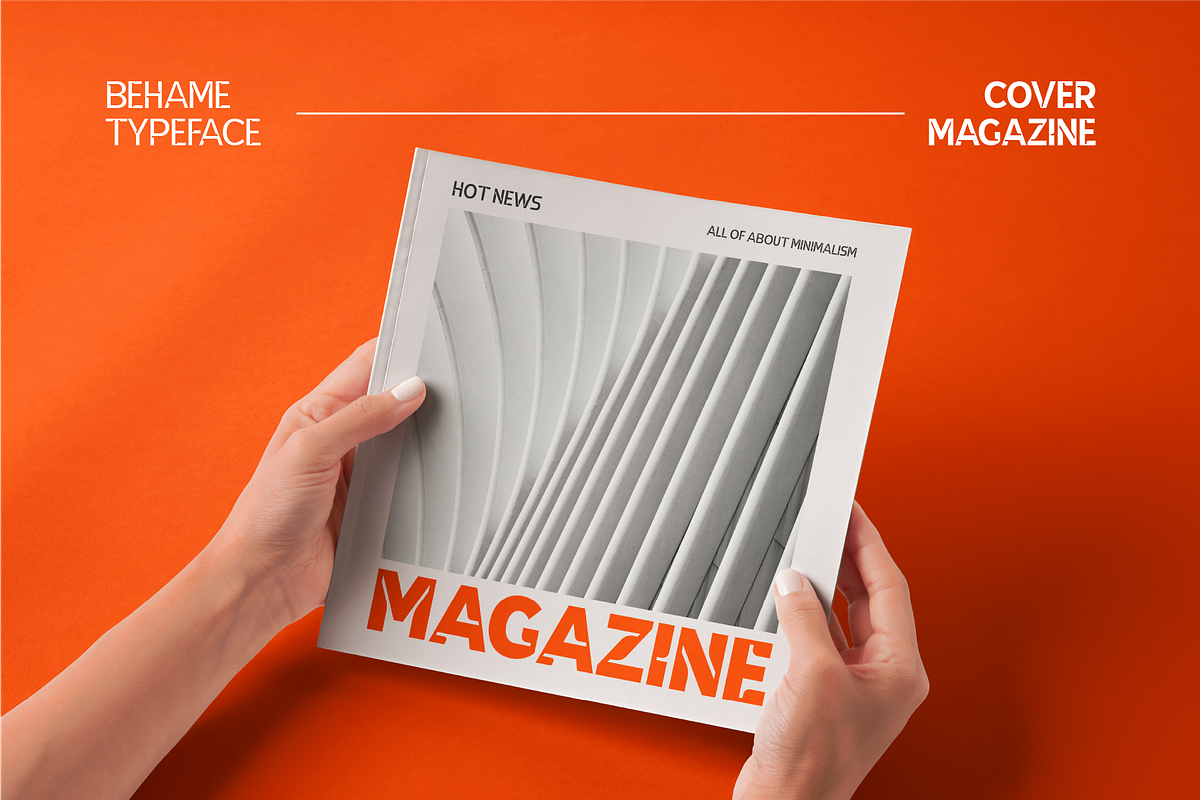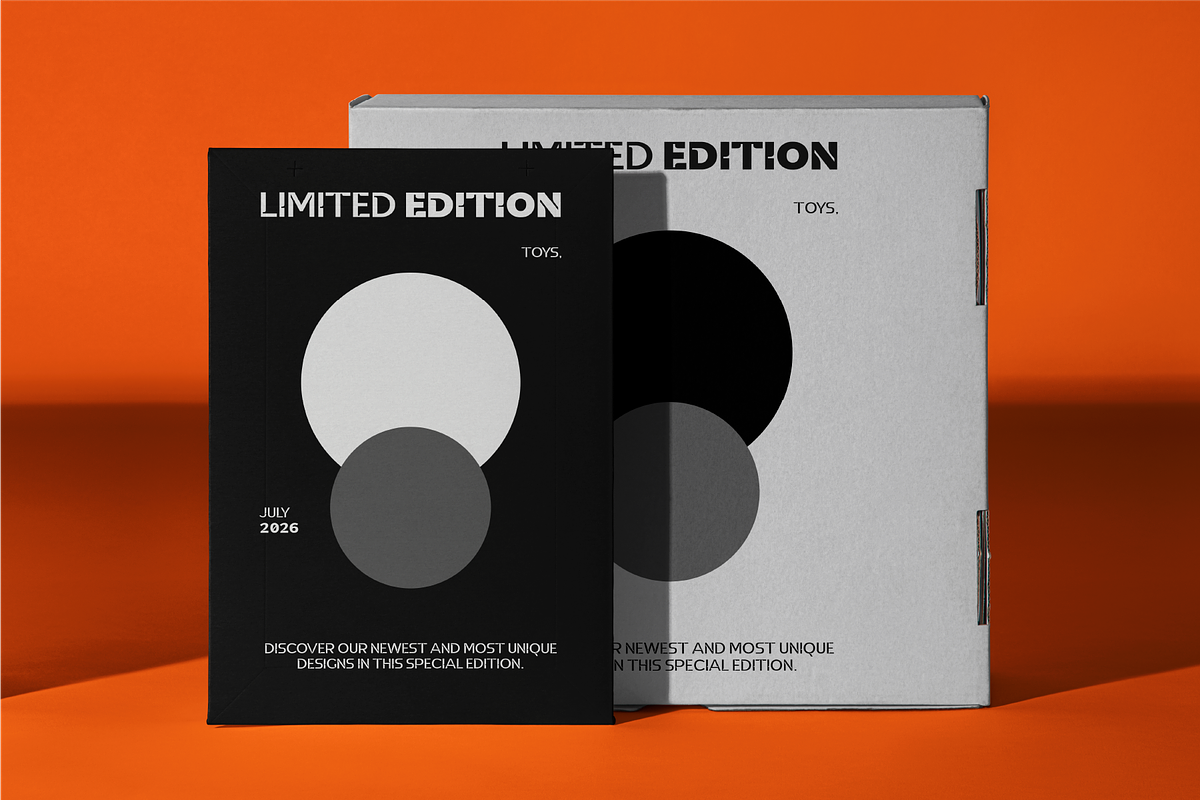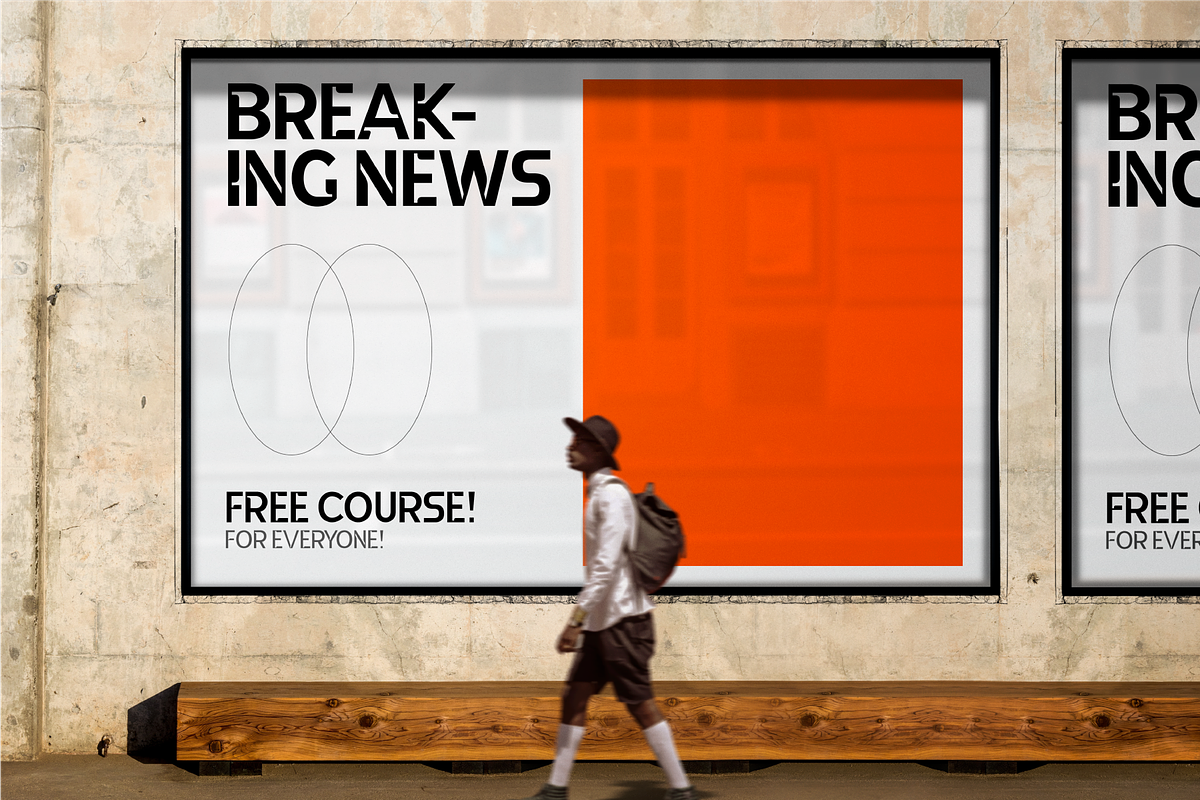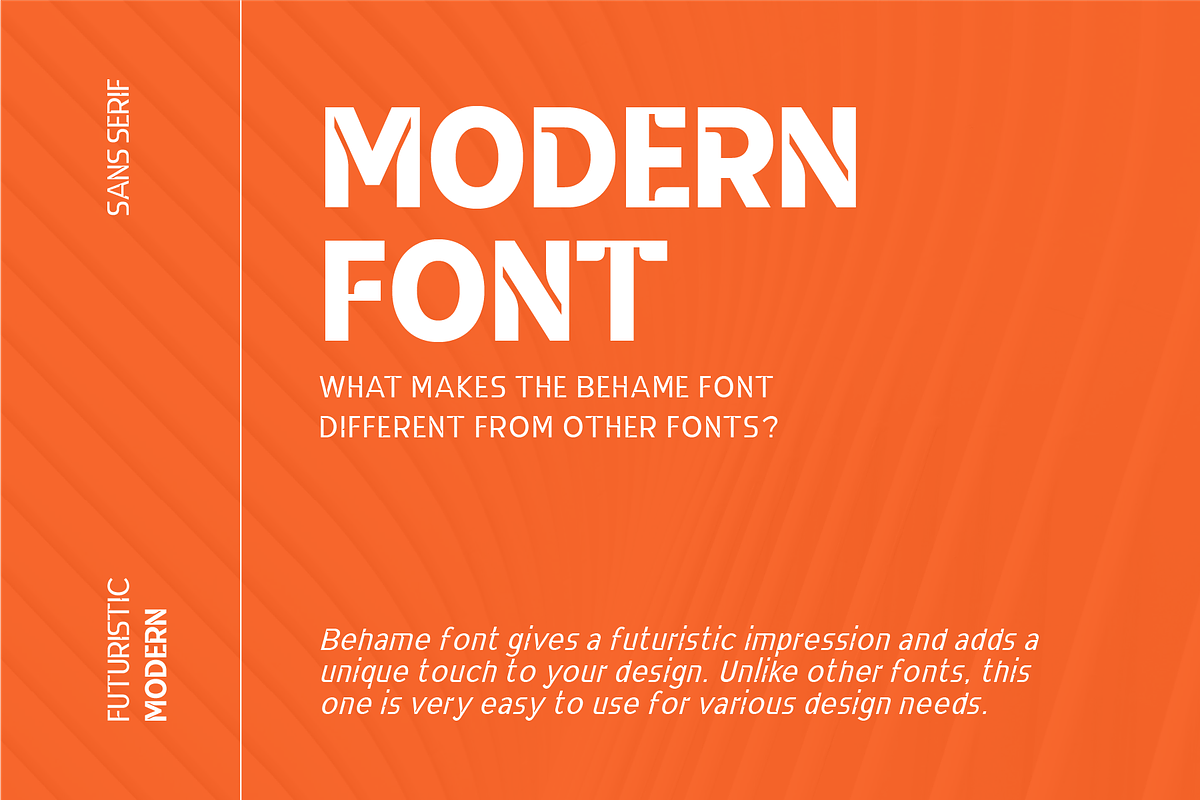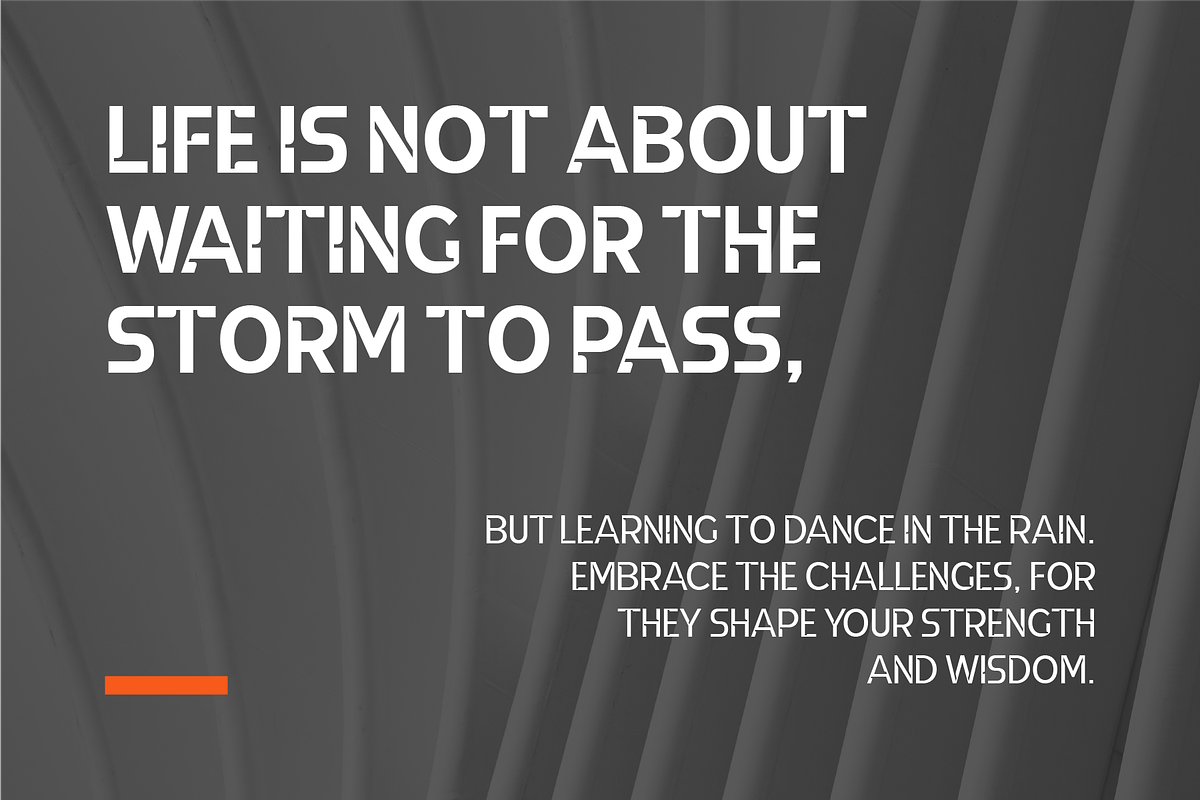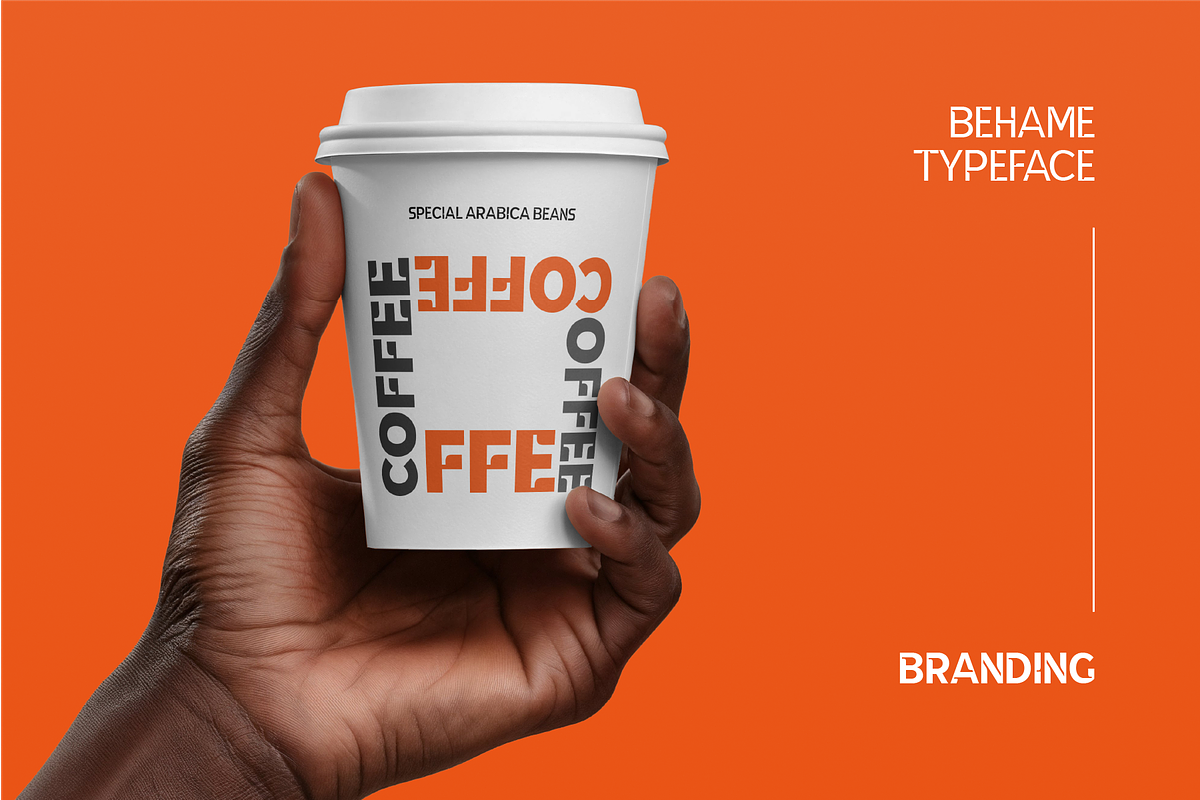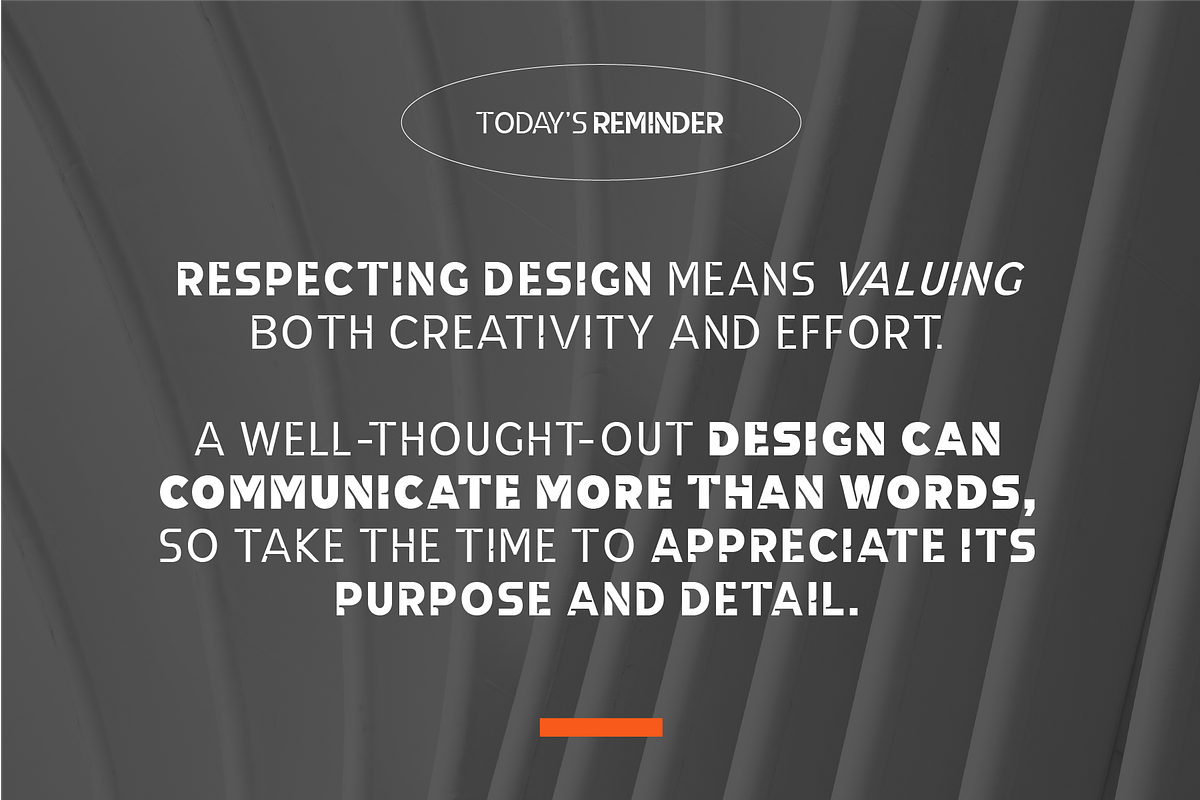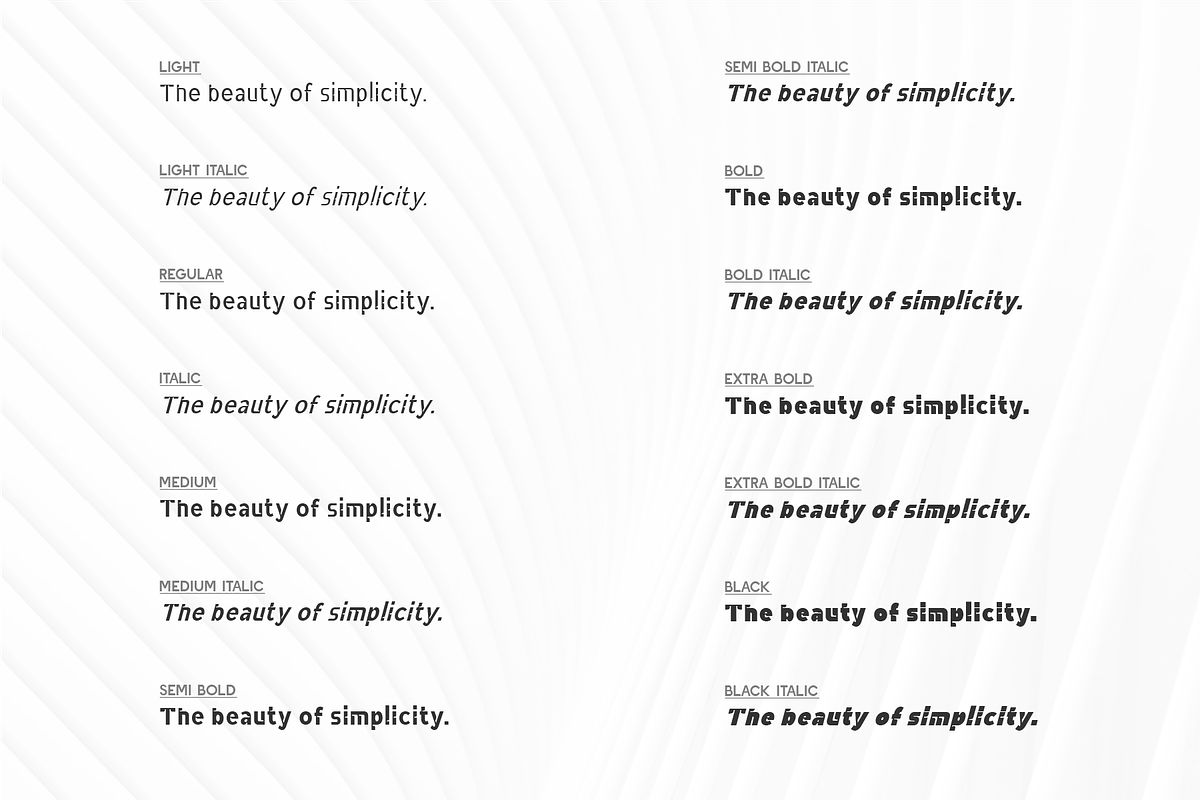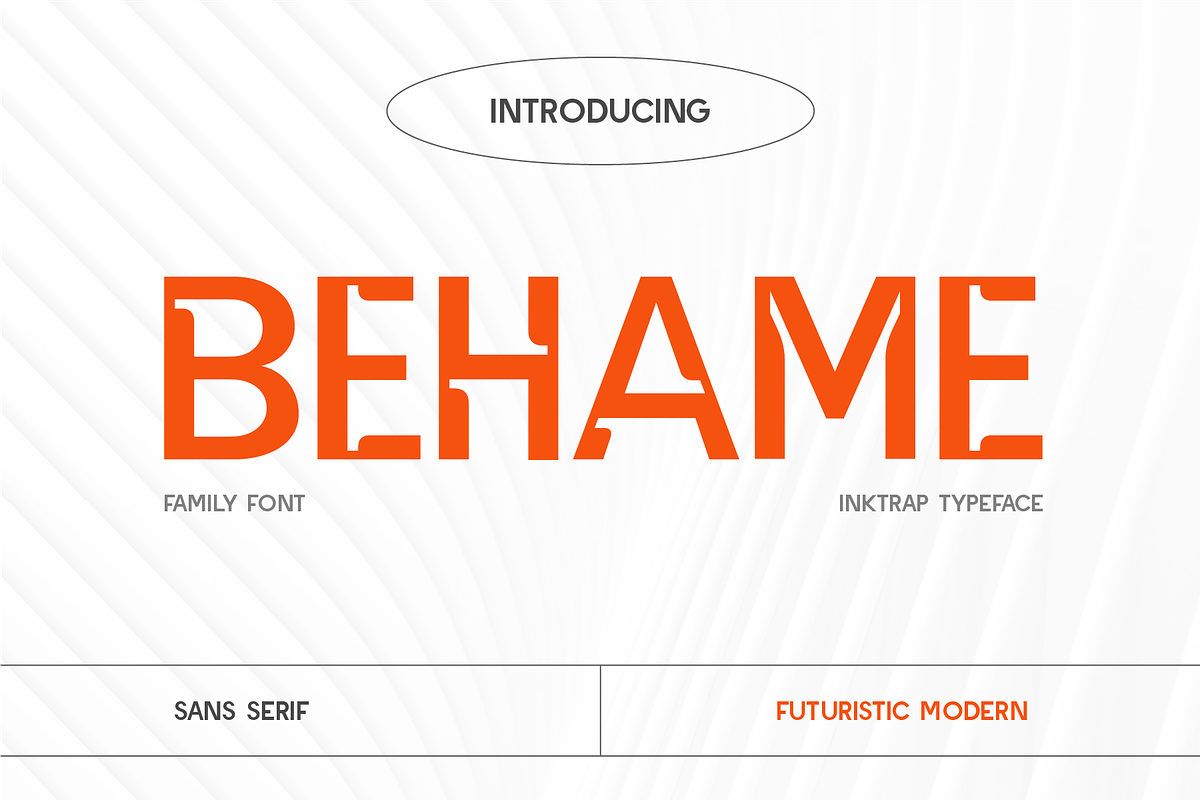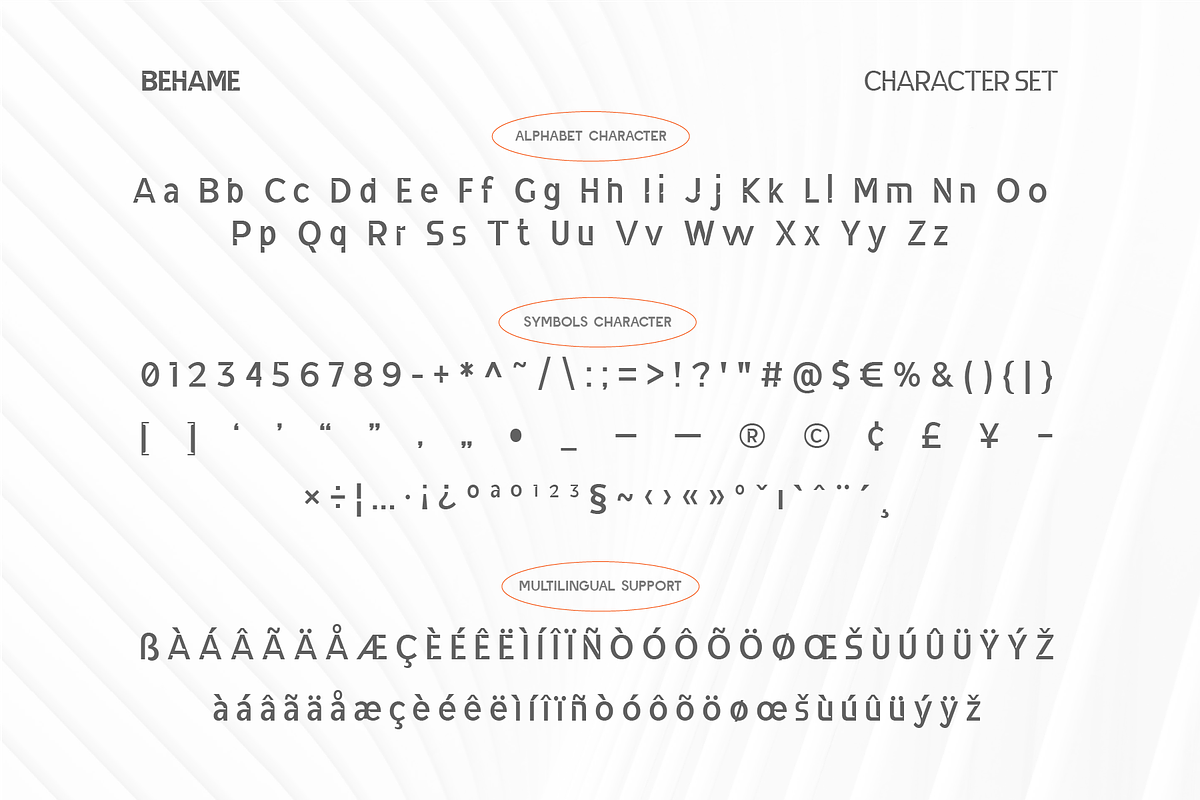
CF Behame - Sleek Futuristic Sans
Behame is a sleek sans serif font with clean, precise inktraps in every glyph, giving it a distinctly futuristic and modern appeal. The dynamic design offers a sense of movement and sharpness, making it perfect for cutting-edge branding and tech-focused designs. Available in a full range of styles from light to black, with italic options for each weight, Behame’s versatility and stylish inktrap detailing make it an excellent choice for both bold headlines and refined body text. Its unique features provide a dynamic yet clean look, ideal for projects that demand a forward-thinking aesthetic.